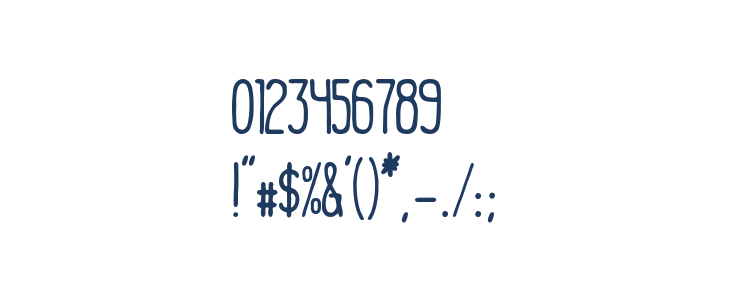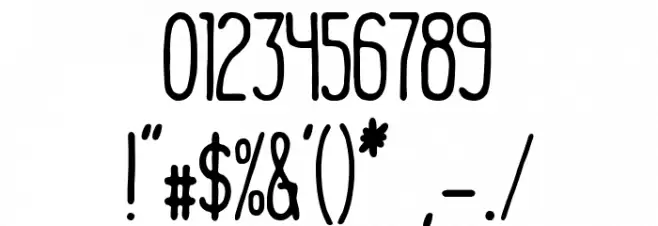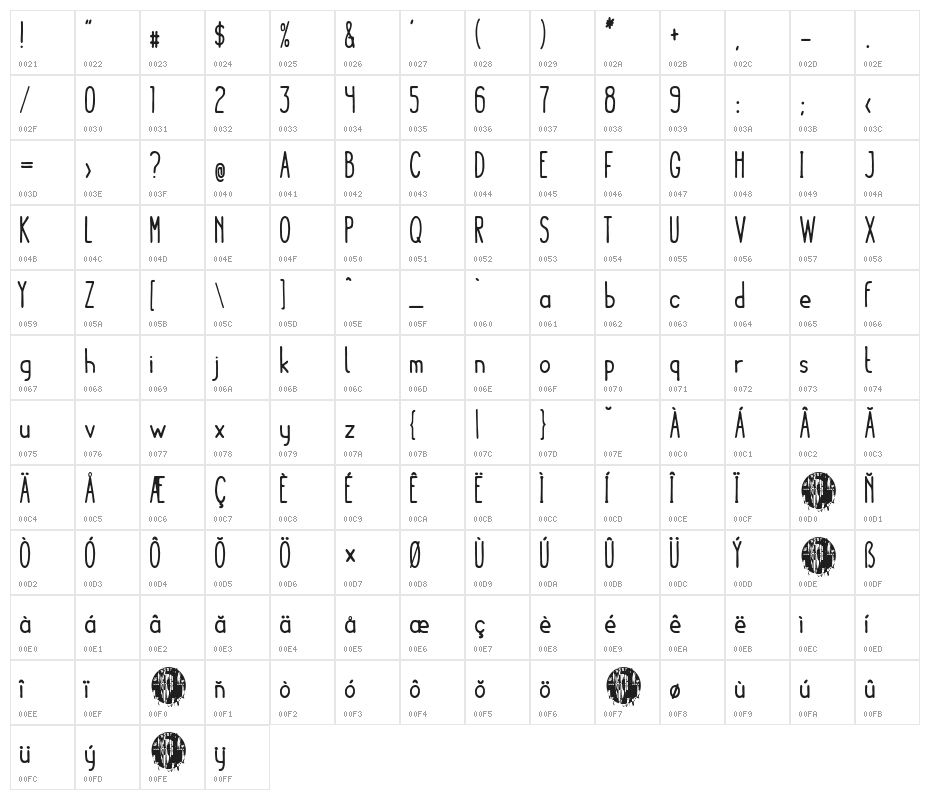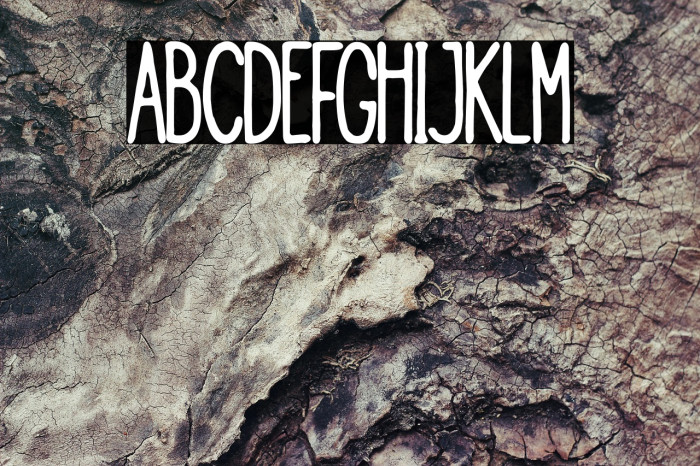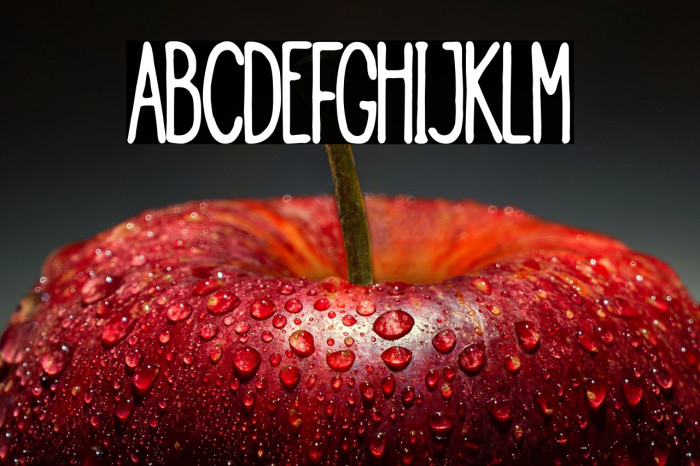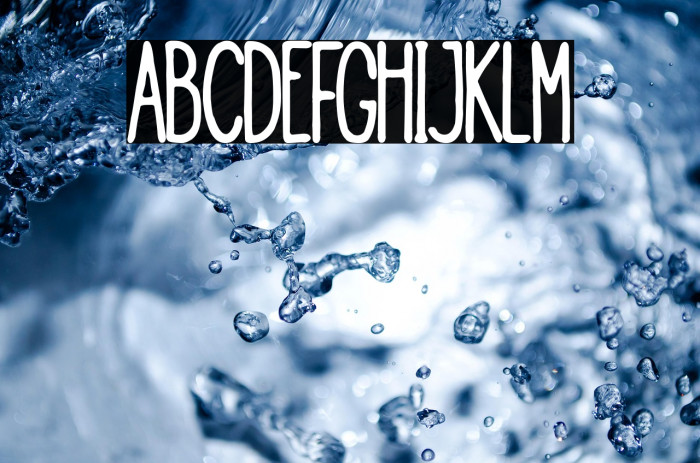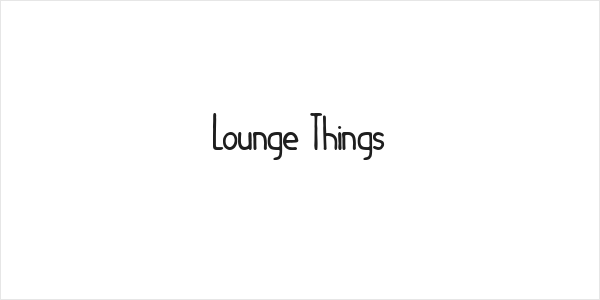
Lounge Things Font
Lounge Things Description
This font features a playful and casual design with rounded edges and a hand-drawn aesthetic. The characters are tall and narrow, giving it a unique and quirky appearance. The uppercase and lowercase letters maintain a consistent style, with slight variations that add to the font's charm. The numbers and special characters are equally whimsical, making this font suitable for creative and informal projects. Its overall look is friendly and approachable, perfect for designs that aim to convey a sense of fun and lightheartedness.